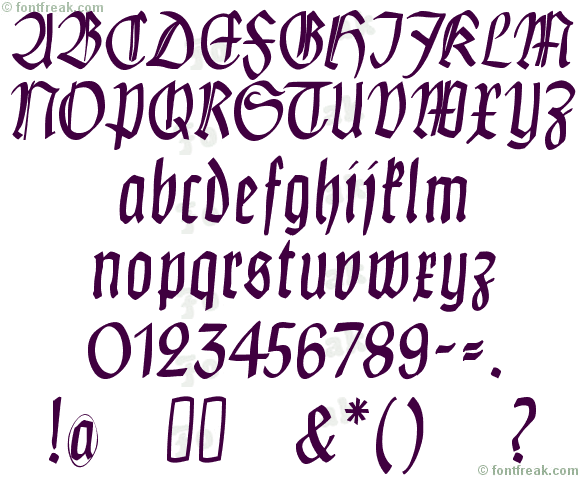
Clausewitz-Fraktur
About Clausewitz Fraktur
Clausewitz Fraktur, designed by Manfred Klein, is a striking example of a decorative serif font that pays homage to traditional German typography. This font captures the essence of Fraktur style, characterized by its intricate letterforms and sharp angles, which evoke a sense of history and elegance. The stroke weight exhibits a moderate contrast, enhancing its readability while still offering an ornate appearance. The spacing is well-considered, allowing for clear legibility even when used in larger blocks of text. Decorative elements, such as the unique serifs and flourishes, add a sophisticated touch that sets this font apart from more conventional typefaces.
Ideal for a variety of applications, Clausewitz Fraktur shines in specific use cases. It is particularly well-suited for wedding invitations, where its romantic and historical flair can enhance the overall aesthetic. Additionally, it works beautifully on movie posters that aim for a vintage or classic feel, capturing the attention of potential viewers. Restaurant menus featuring German or rustic cuisine can benefit from its unique charm, creating an authentic dining experience. Graphic designers and content creators will find this font useful for branding materials that require a touch of tradition and elegance.
Targeted towards graphic designers, small business owners, and creatives looking to make an impact, Clausewitz Fraktur offers a versatile solution that combines artistry with functionality. Its freeware license makes it accessible for various projects without the burden of licensing fees. The Clausewitz Fraktur font free download option allows users to explore its distinctive visual style without hesitation. In a world where fonts often blend into the background, Clausewitz Fraktur stands out as a bold choice that marries tradition with modern design sensibilities.